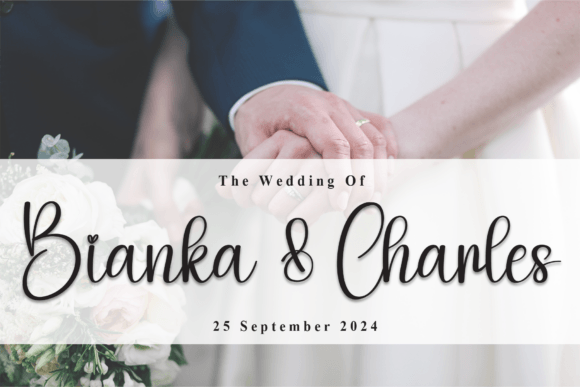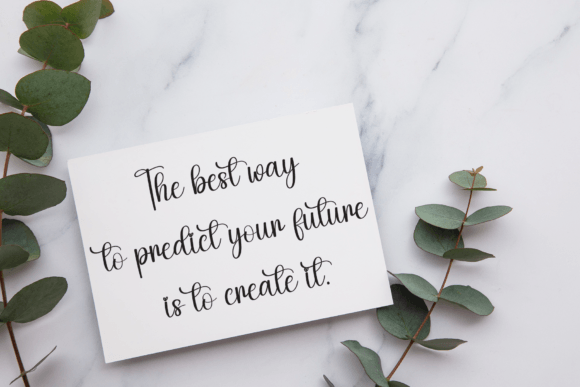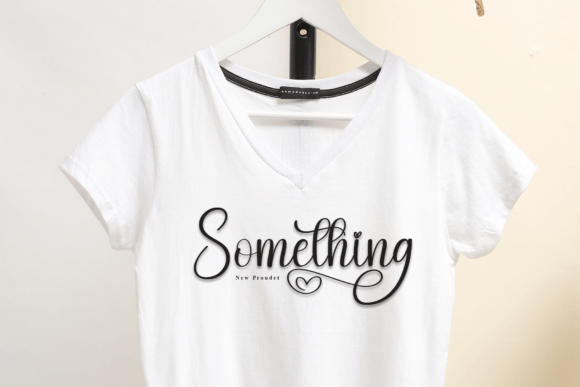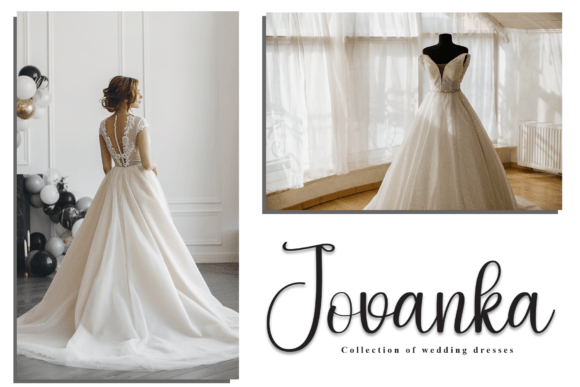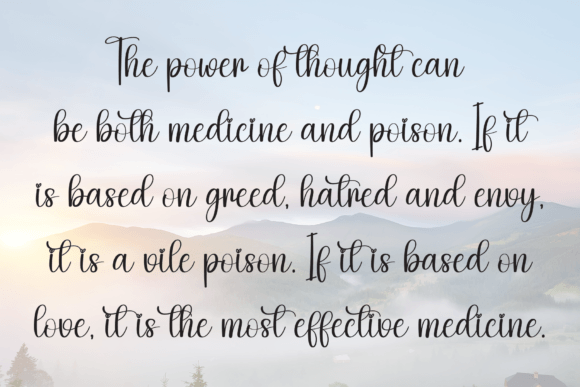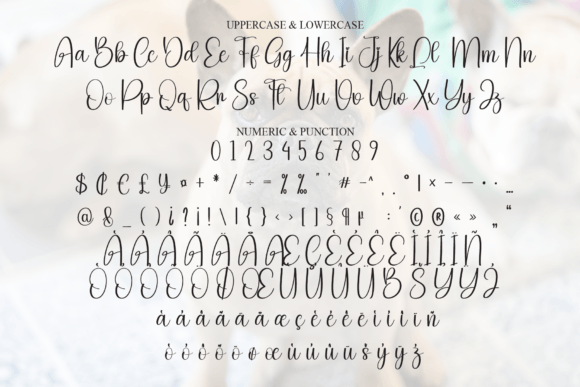
Bulldogs Font: Elevate Your Designs with Elegance and Charm
In the world of typography, few fonts manage to capture the essence of elegance and charm as effortlessly as Bulldogs Font. This stylish handwritten script font is designed to bring a touch of sophistication and warmth to any design, making it a perfect choice for creatives and designers looking to add a personal touch to their work.
The Unique Characteristics of Bulldogs Font
Bulldogs Font stands out with its fluid strokes and natural flow, creating a captivating and sophisticated look that is hard to resist. The font’s design is characterized by its:
- Fluid strokes: The smooth, flowing lines of Bulldogs Font give it a dynamic and elegant feel, perfect for creating eye-catching designs.
- Natural flow: The font’s natural flow makes it easy to read and understand, while also adding a touch of warmth and personality to any text.
- Handwritten script style: The handwritten script style of Bulldogs Font adds a personal touch to any design, making it perfect for invitations, branding, and social media.
Bulldogs Font is a versatile font that can be used in a variety of design projects, including:
- Invitations: Add a touch of elegance and sophistication to your invitations with Bulldogs Font, making them perfect for weddings, parties, and other special occasions.
- Branding: Use Bulldogs Font to create a unique and memorable brand identity that stands out from the crowd.
- Social media: Elevate your social media designs with Bulldogs Font, making your posts and stories more engaging and visually appealing.
Why Choose Bulldogs Font?
With so many fonts available, why choose Bulldogs Font? Here are just a few reasons why this font stands out:
- Elegance and charm: Bulldogs Font exudes elegance and charm, making it perfect for designers and crafters looking to add a touch of sophistication to their work.
- Warmth and creativity: The font’s natural flow and fluid strokes bring a sense of warmth and creativity to any design, making it perfect for projects that require a personal touch.
- Easy to read and understand: Despite its elegant and sophisticated look, Bulldogs Font is easy to read and understand, making it perfect for body text and other long-form content.
Tips for Using Bulldogs Font
To get the most out of Bulldogs Font, here are a few tips to keep in mind:
- Use it sparingly: Bulldogs Font is a statement font, so use it sparingly to add emphasis and create visual interest.
- Pair it with complementary fonts: Pair Bulldogs Font with complementary fonts to create a unique and visually appealing typography scheme.
- Experiment with different sizes and colors: Don’t be afraid to experiment with different sizes and colors to find the perfect combination for your design.
Bulldogs Font is a stylish handwritten script font that is sure to elevate your designs with its elegance and charm. With its fluid strokes, natural flow, and captivating look, this font is perfect for designers and crafters looking to add a personal touch to their work. Whether you’re creating invitations, branding, or social media designs, Bulldogs Font is a versatile and sophisticated choice that is sure to impress.